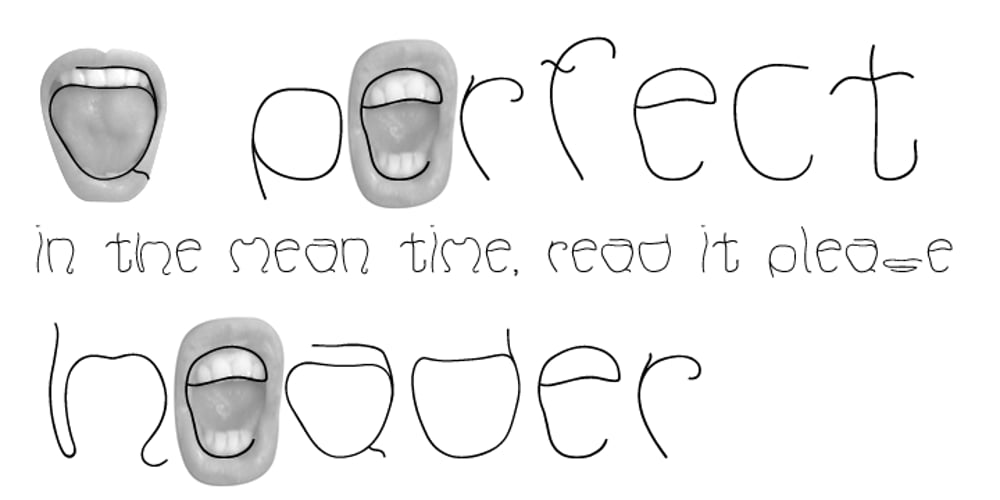
Mimic Font Family was designed by Dmitri Moruz and published by Dmitri Moruz. Mimic contains 3 styles and family package options. Mimic is a font family of several typefaces, that are based upon the physical structure of the mouth, depicted while speaking of corresponding letters occurred. It is primarily created as an accidental font family, and thus contains the very basic glyph set, which includes: punctuation, numbers, and letters. Mimic font family is made up of: Mimic Regular, Mimic Medium, and Mimic Bold.